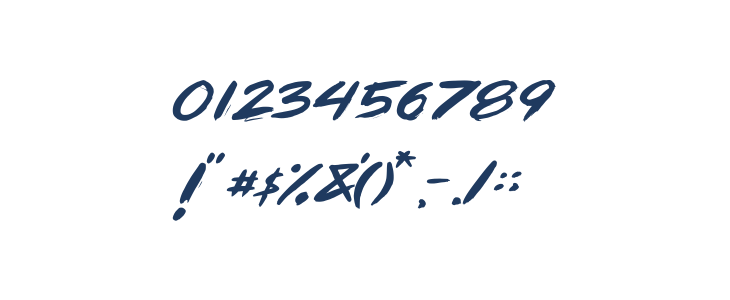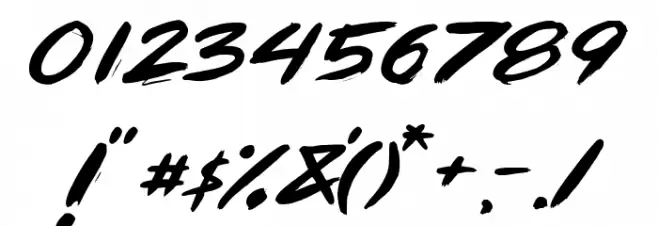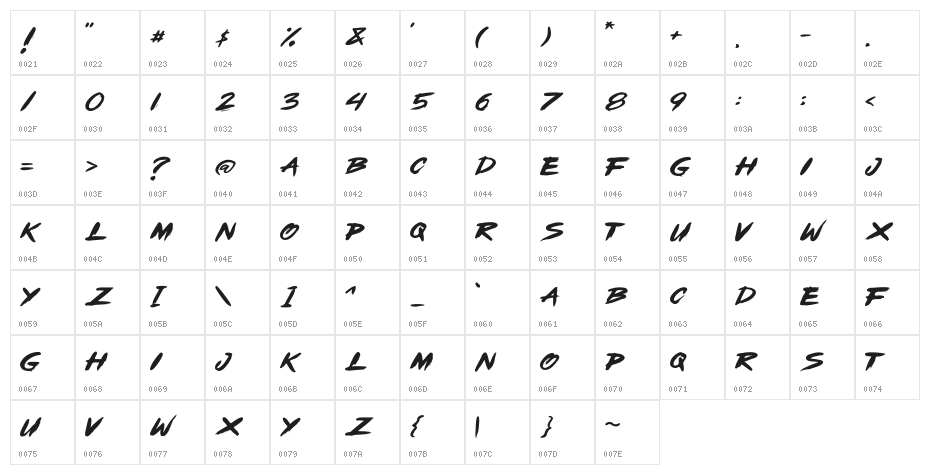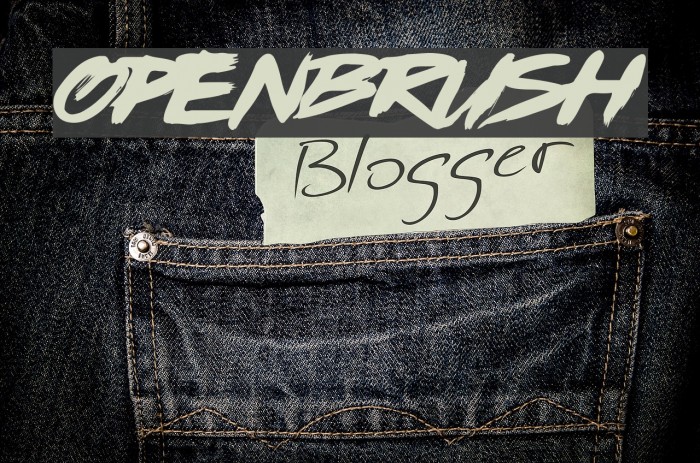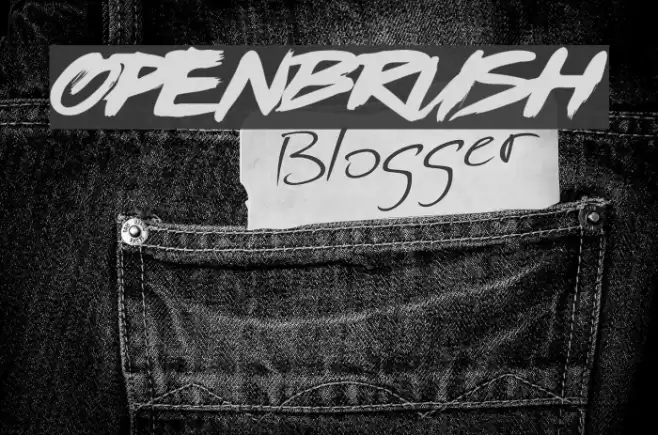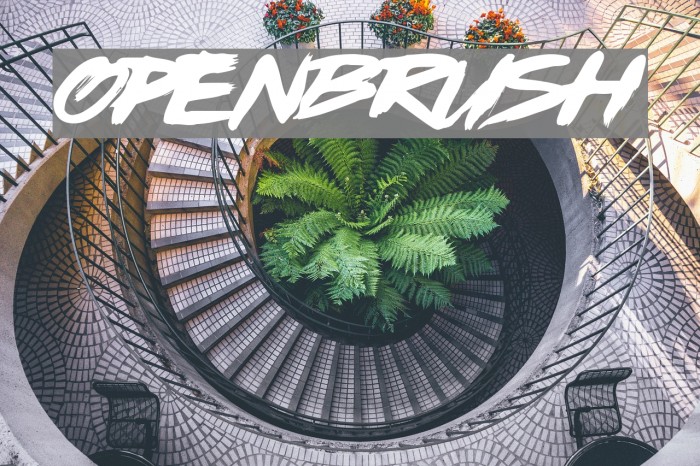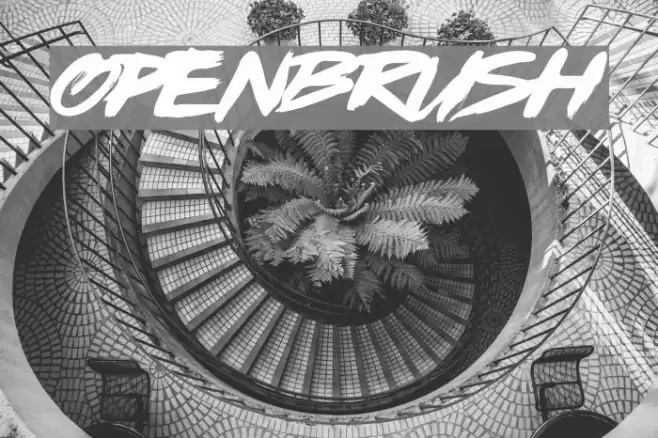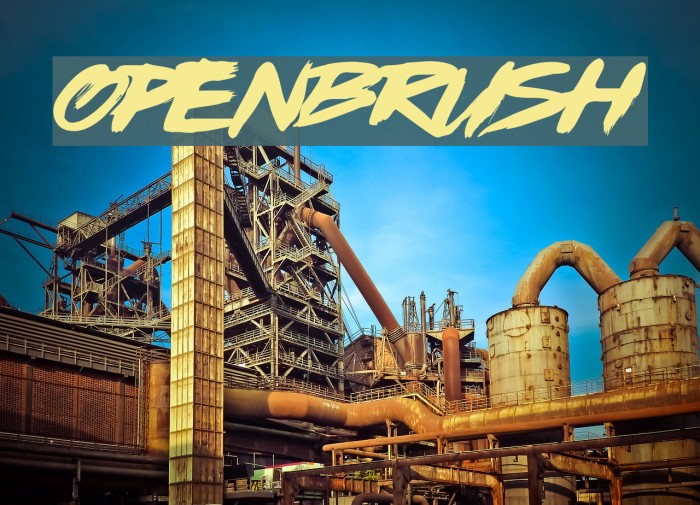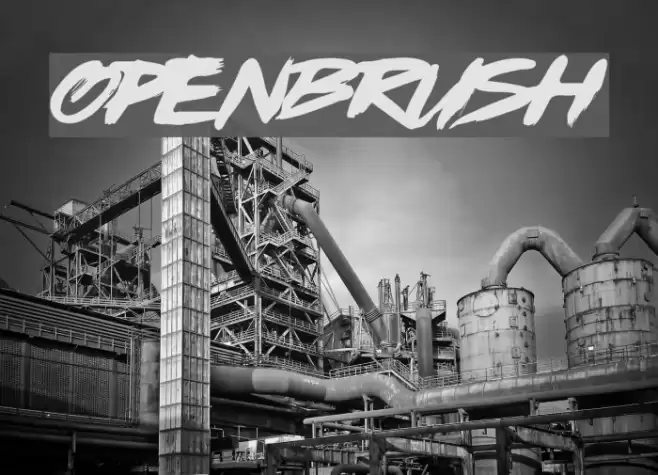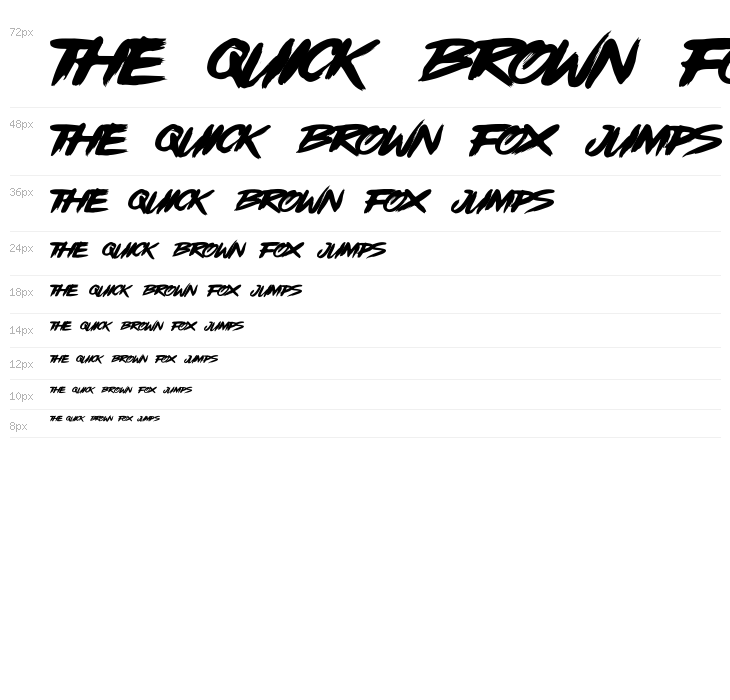
OpenBrush Font
OpenBrush Description
This font features a bold, dynamic brush style with a strong emphasis on movement and energy. The strokes are thick and expressive, giving each character a sense of urgency and flair. The letters are slightly slanted, adding to the sense of motion, and the edges are rough, mimicking the texture of a brush on canvas. This style is both artistic and impactful, making it ideal for designs that require a strong visual presence. The uppercase and lowercase letters maintain a consistent style, and the numbers and special characters are equally bold and expressive, ensuring a cohesive look across all text elements.
| Proposed Projects | Ideal for posters, branding, album covers, and any project requiring a bold, artistic touch. |